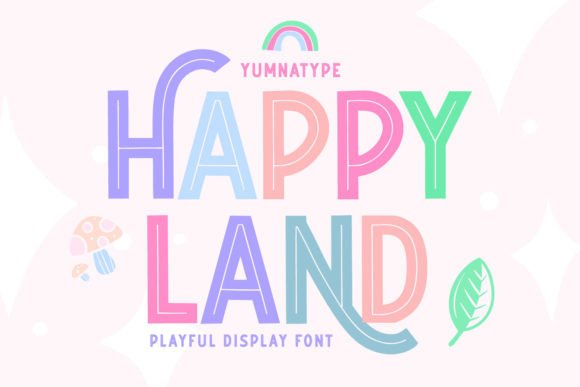
Introducing Happy Land Font, the perfect choice for designers who want to make their designs stand out! Created by Yumna_Type, this display font is designed to add a touch of firmness to your designs and ensure that your message is conveyed clearly.
Gone are the days of using ordinary fonts that lack prominent characters. Happy Land is a standout display font that will give your designs a professional and eye-catching look. With its all-capital letters, this font is sure to grab the attention of your audience.
One of the unique features of Happy Land is its simple shapes with strong contrasts, which make it easy to read and legible from a distance. This makes it the ideal choice for large-scale designs such as billboards, posters, and banners.
But Happy Land is not just limited to large-scale designs. Its versatility also makes it suitable for use in smaller designs such as logos, product packaging, and social media graphics. Its bold and attention-grabbing appearance will ensure that your message is conveyed effectively.
Whether you're a designer or a business owner, Happy Land Font is a must-have in your toolkit. Its clean and modern design will elevate your designs and make them stand out from the crowd. So why settle for ordinary fonts when you can use Happy Land to create stunning designs that capture the attention of your audience?
In summary, Happy Land Font is the perfect font for designers who want to add a touch of firmness and professionalism to their designs. Its all-capital letters, simple shapes, and strong contrasts make it easy to read and perfect for both large and small-scale designs. So why wait? Download Happy Land Font today and start creating designs that stand out!